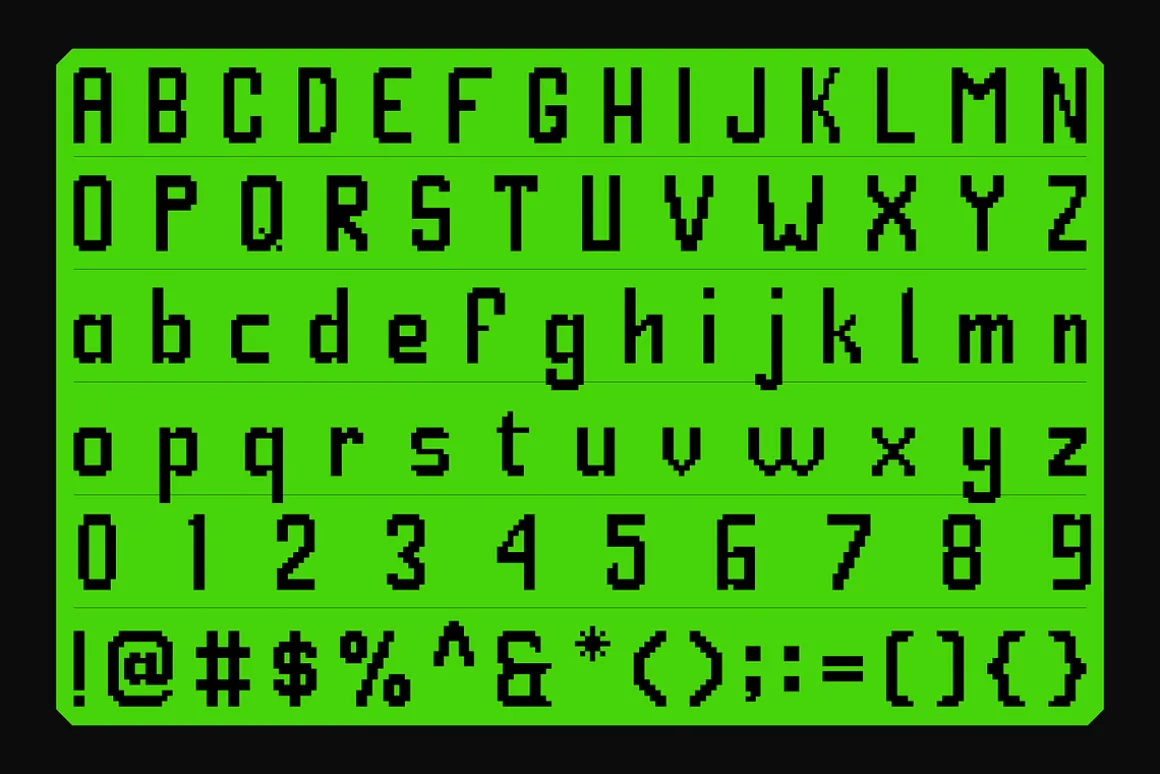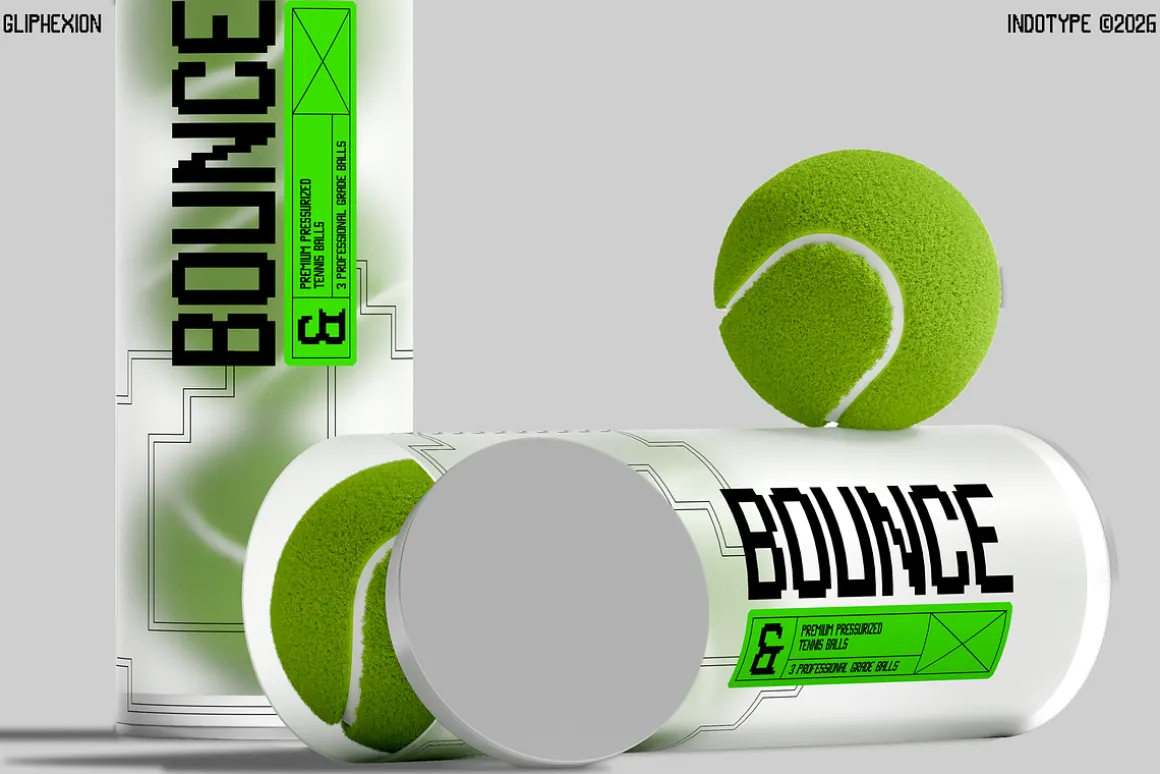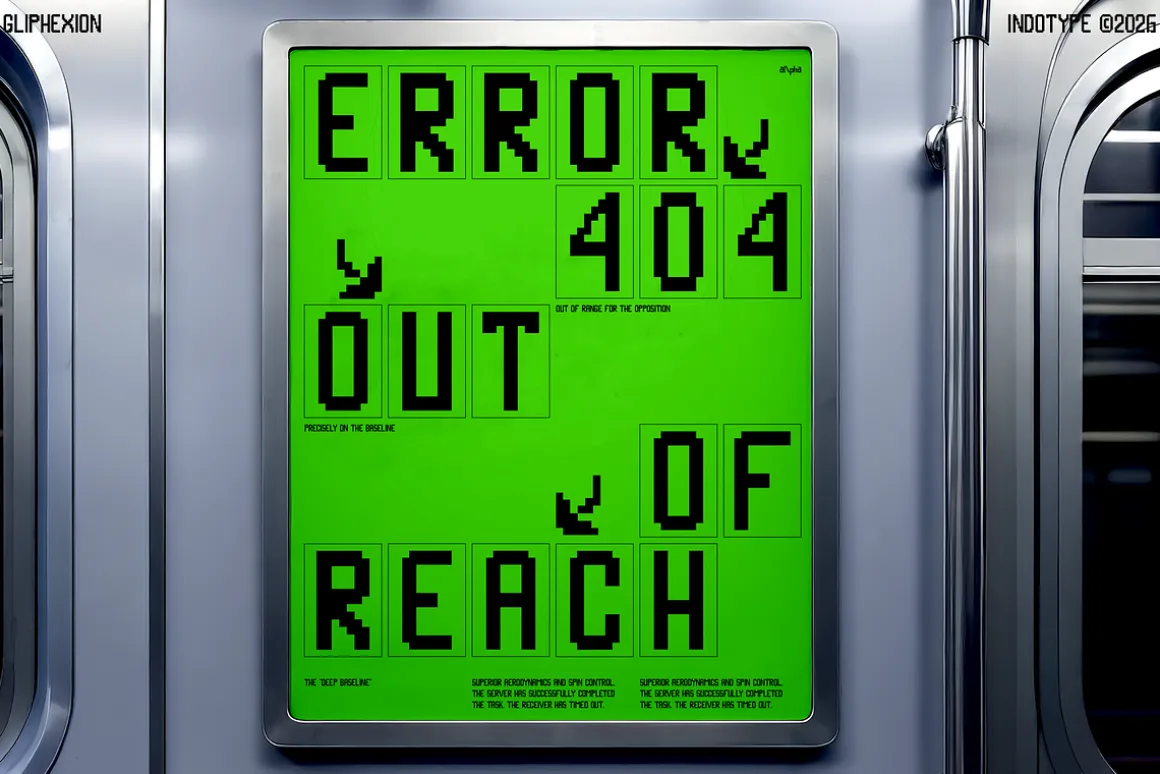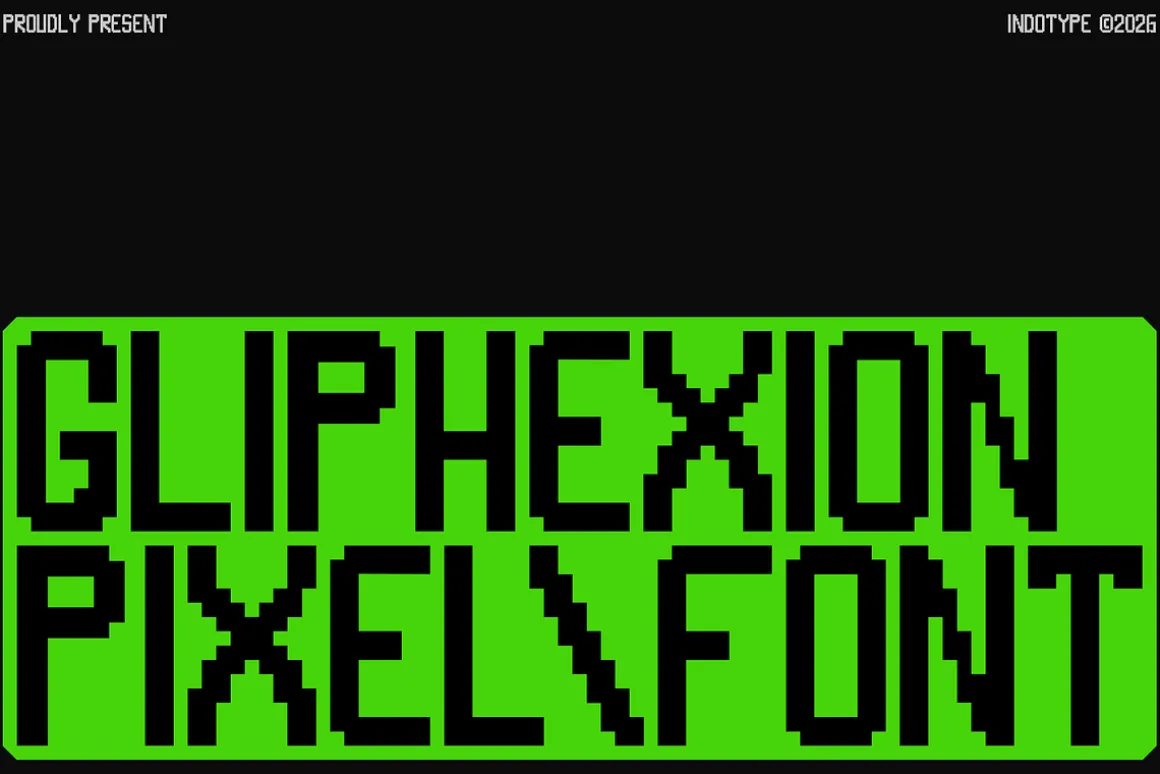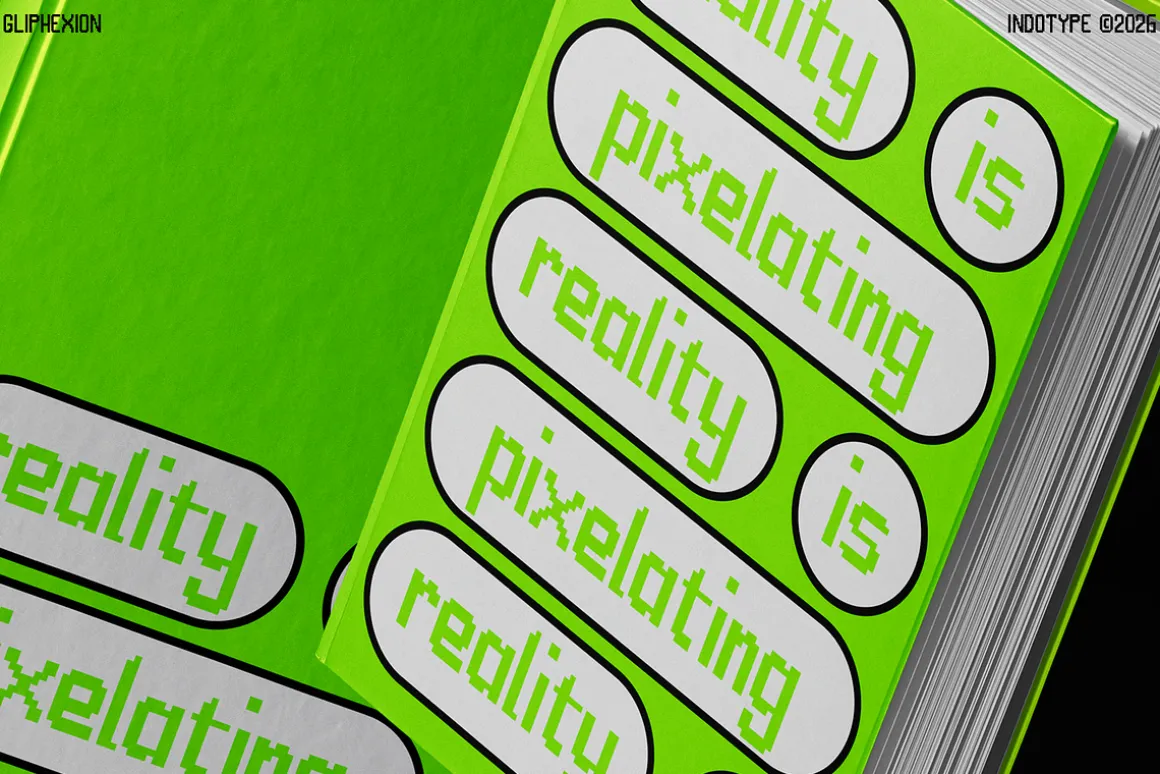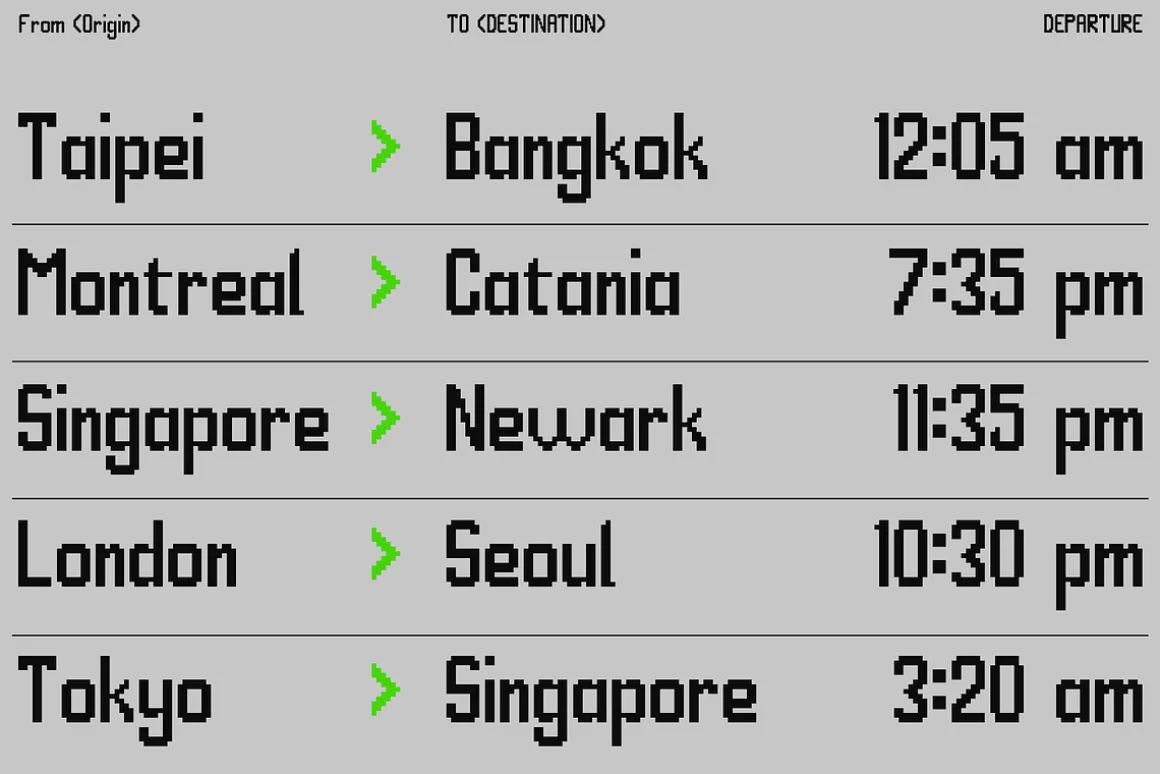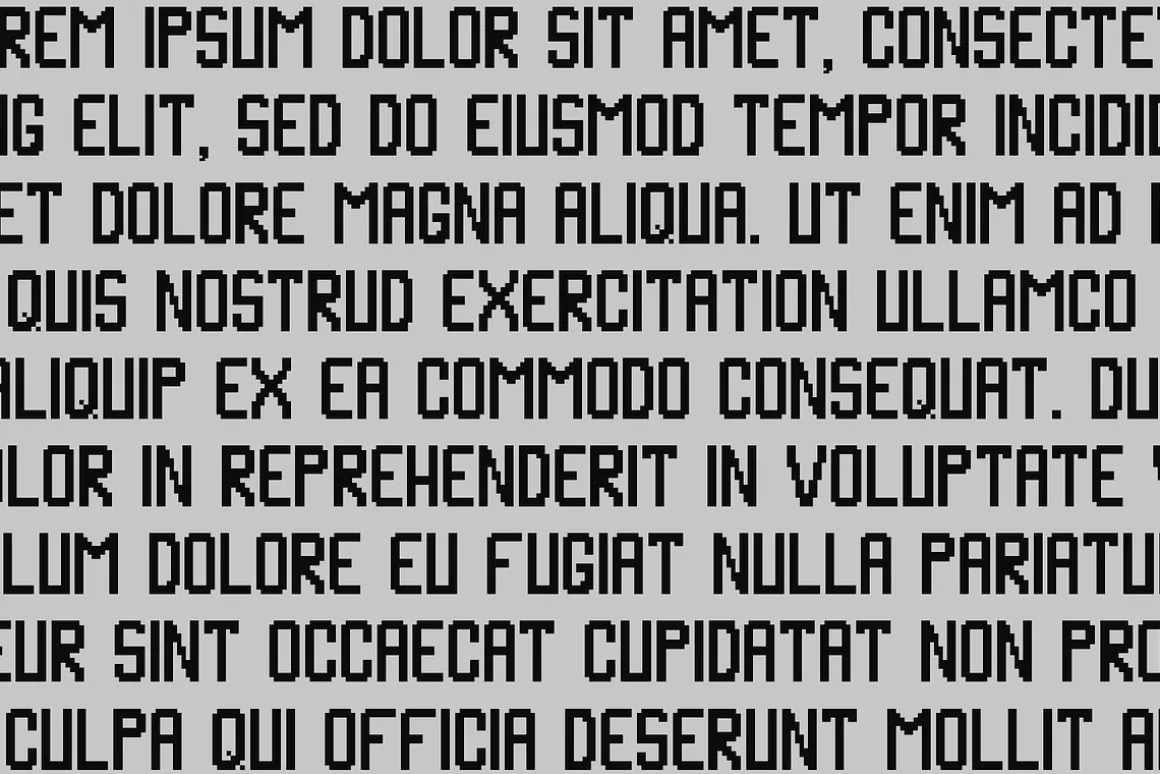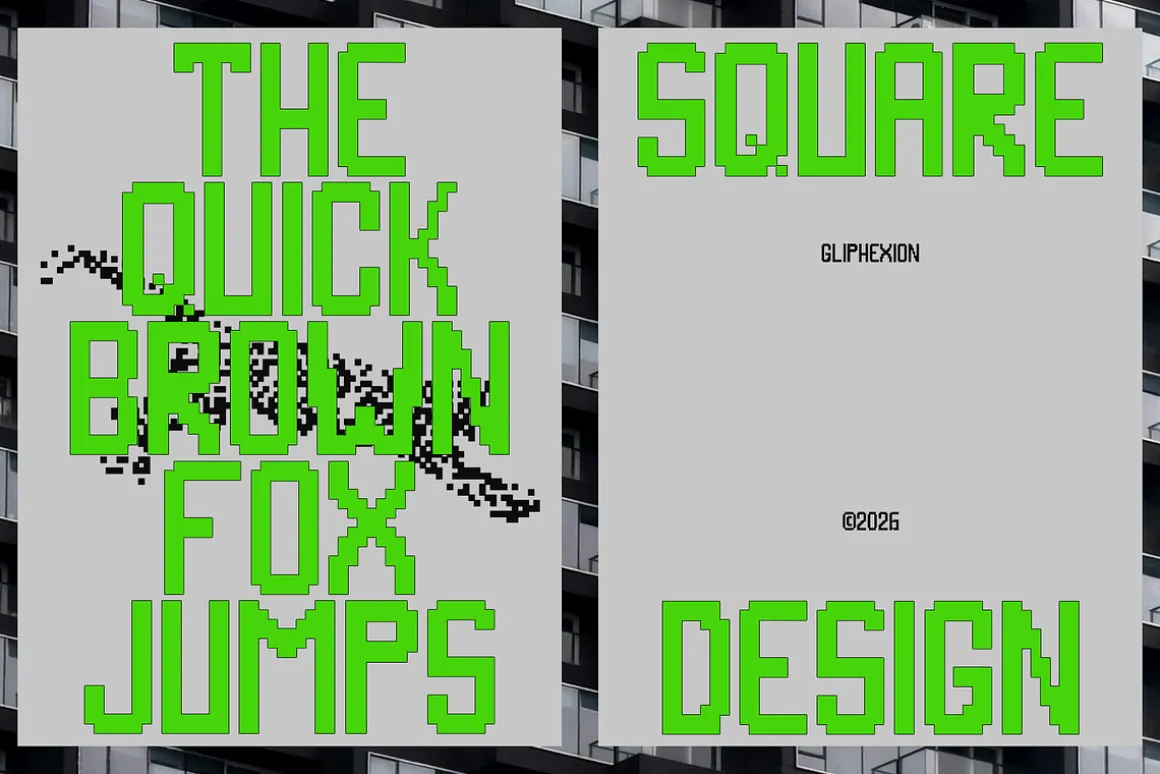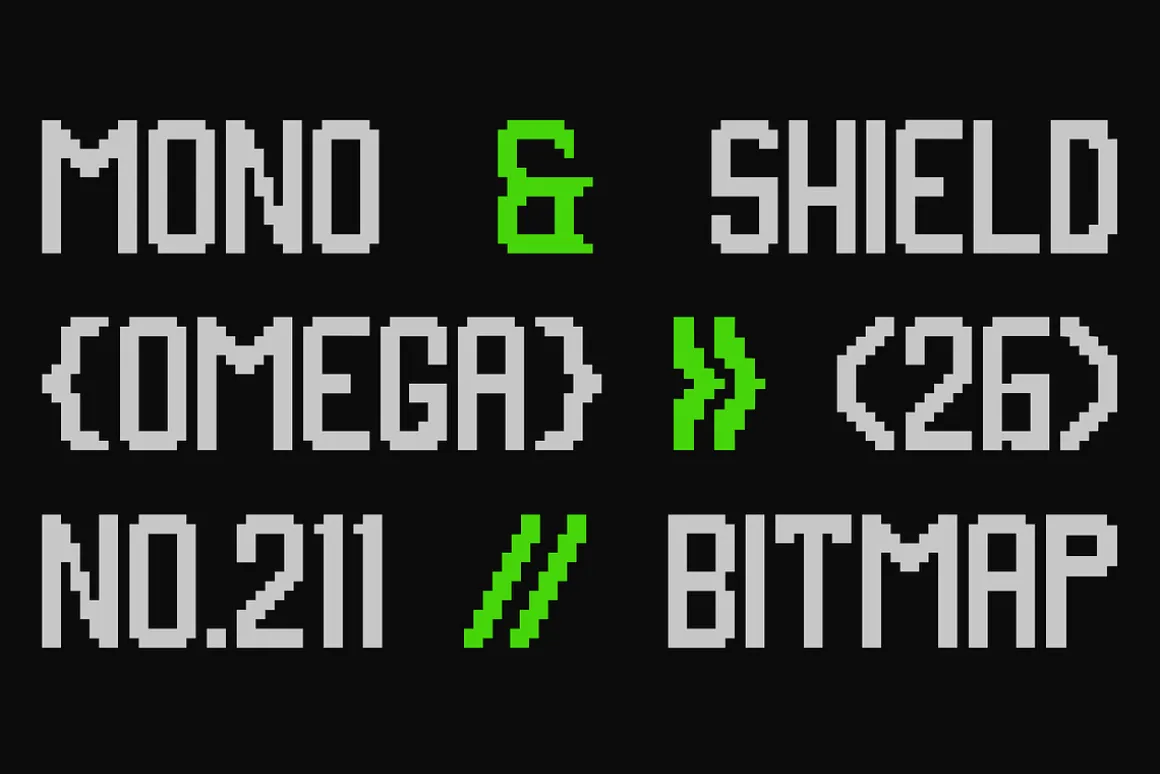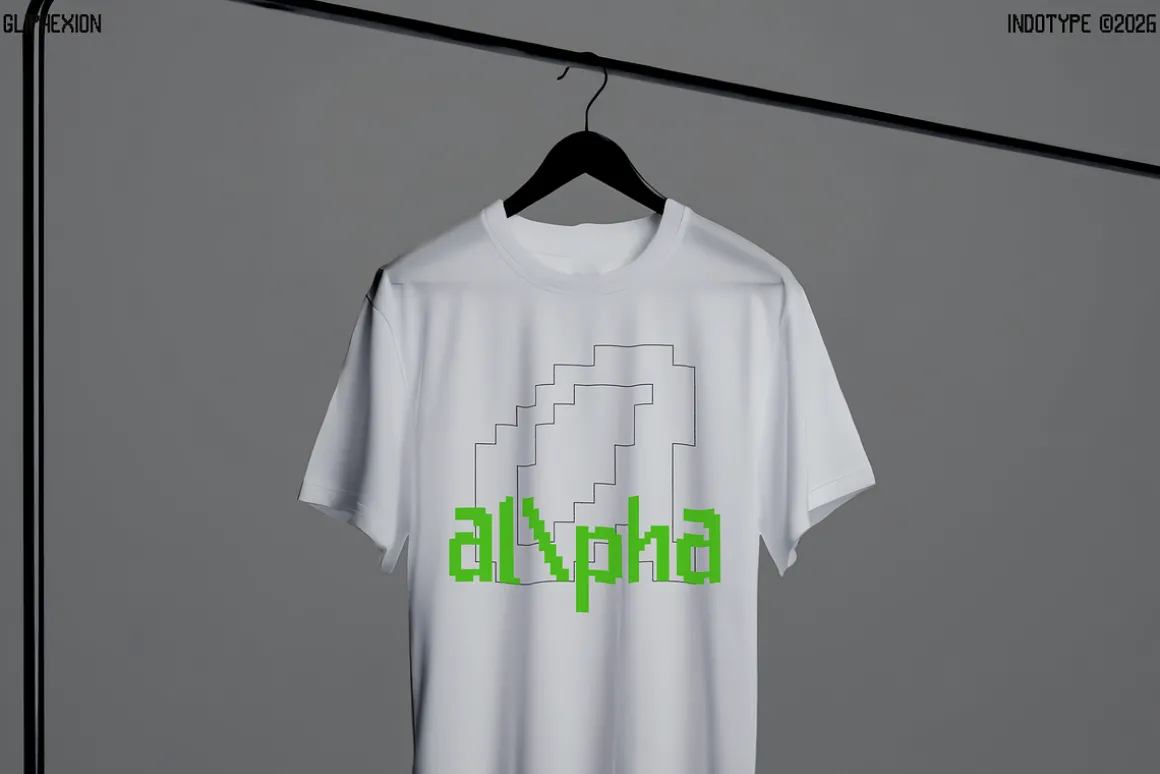
Gliphexion is a meticulously crafted bitmap pixel font that captures the raw, nostalgic charm of early digital and gaming interfaces while injecting a dose of retro-futuristic style. Each character is built from a grid of crisp, intentional pixels, celebrating the aesthetic limitations of low-resolution displays as a deliberate design choice. This results in a typeface that is both authentically vintage and strikingly modern.Perfect for projects that thrive on digital nostalgia, cyberpunk aesthetics, or a crafted DIY feel, Gliphexion excels in game UI design, tech-themed branding, crypto/Web3 graphics, and any editorial or artistic work aiming for an 8-bit soul with contemporary execution. It’s a direct connection to the foundational language of screens, rendered with precision.
- Ideal for:Video Game UI & HUDs, Cyberpunk & Retro-Futuristic Design, Crypto/Web3 Branding, Tech & Coding Themes, Digital Art, Nostalgic Packaging.
- Classification:Pixel, Bitmap, Display, Monospaced, Retro.
- Attributes:Digital, Nostalgic, Crisp, Geometric, Retro-futuristic, Authentic, Modular.